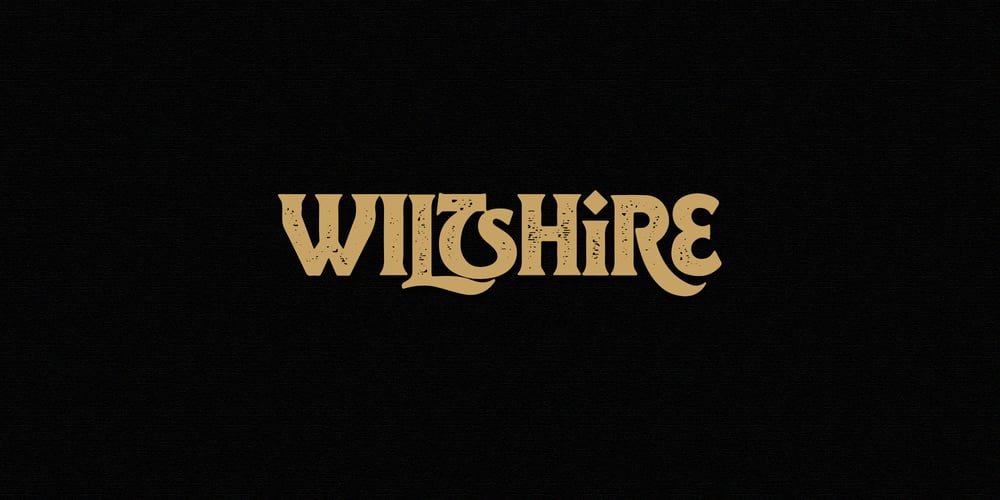
Wiltshire Font Family was designed by Muhammad Afif Ersya and published by Mevstory Studio. Wiltshire contains 23 styles and family package options. Say Hello to “Wiltshire” Font Family – The Super Vintage Typeface. From sleek vintage to timeless Art Deco, and even a touch of abstract intrigue, it’s all wrapped up in one versatile font family. With nine weights, eighteen styles, OpenType features, multi-language support, and variable type options, “Lemon” is a must-have for any designer.